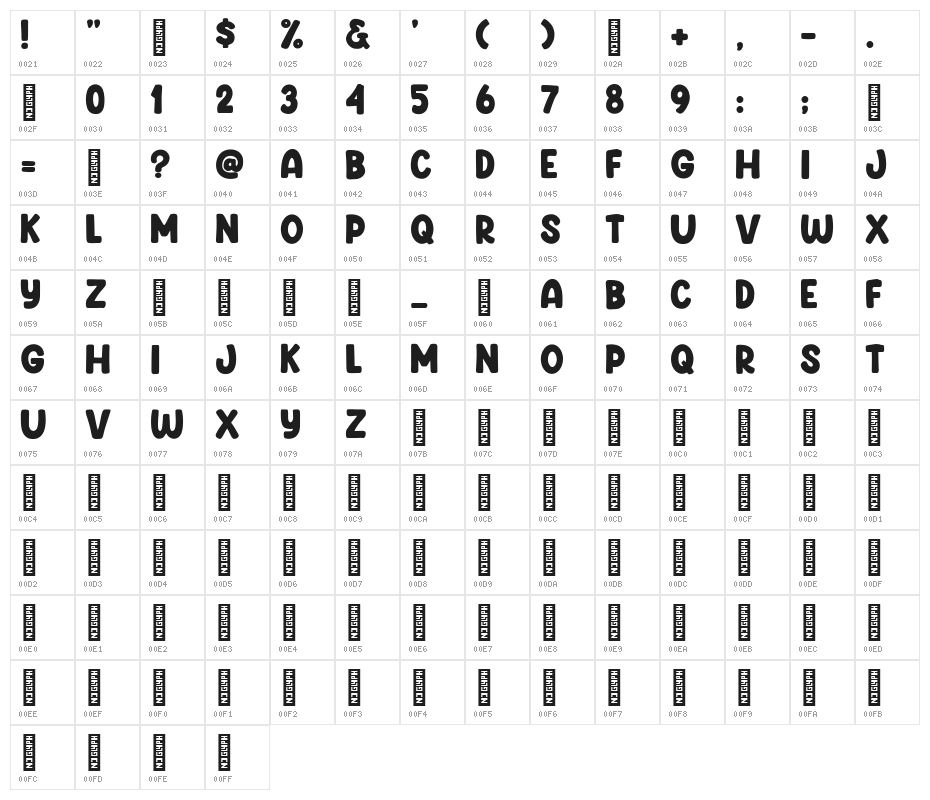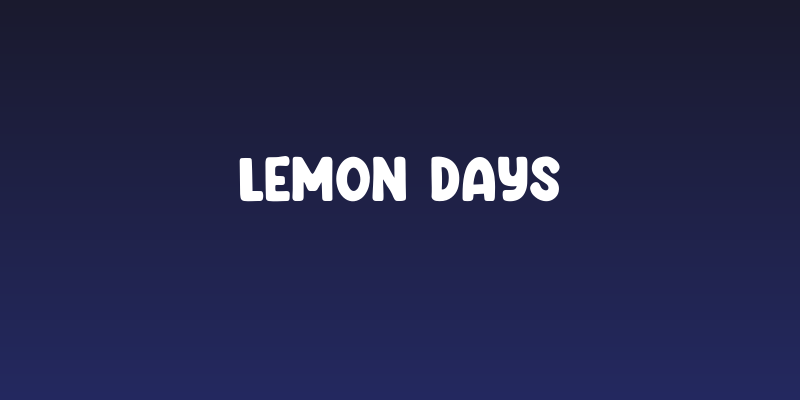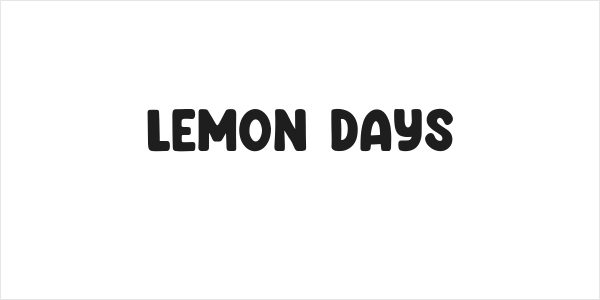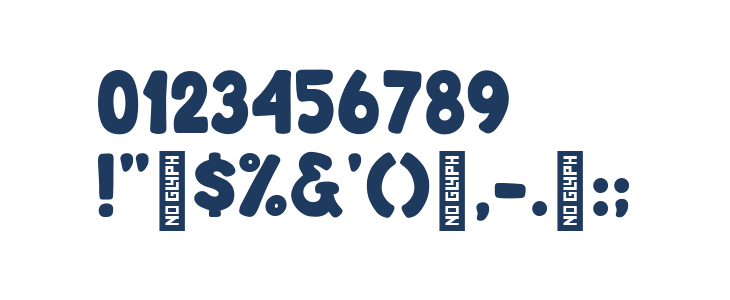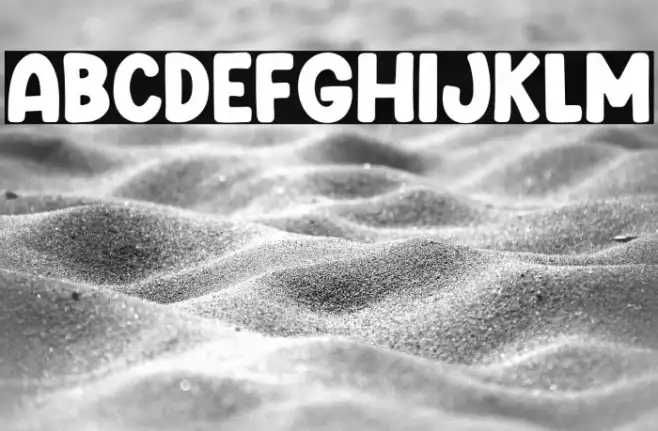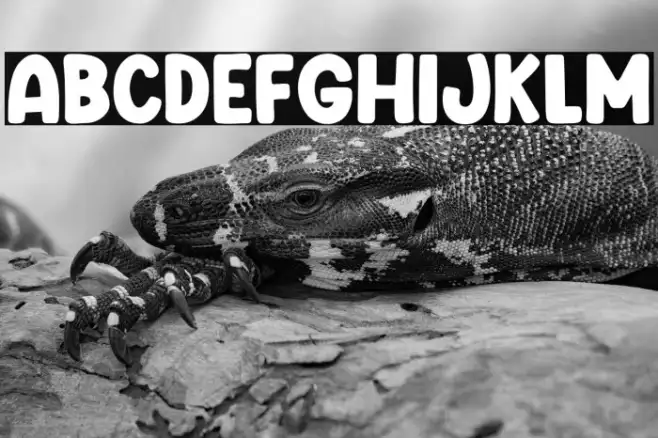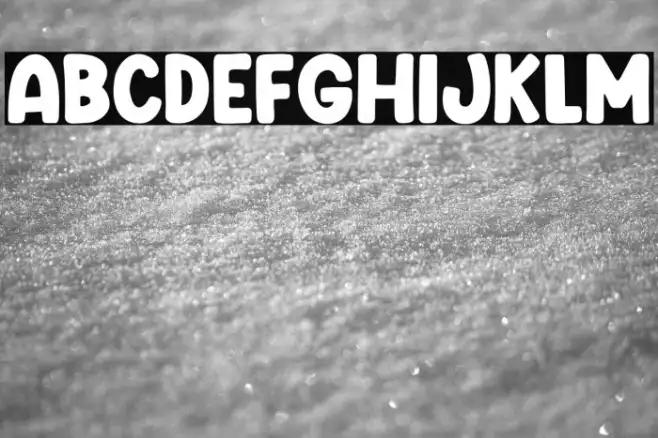
Lemon Days Font
Lemon Days Description
This font features bold, rounded characters with a playful and friendly appearance. The letters are thick and have a consistent stroke width, giving them a strong presence. The rounded edges and smooth curves contribute to a soft and approachable look, making it ideal for informal and fun designs. The numbers and special characters maintain the same playful style, ensuring consistency across all elements. This font is well-suited for projects that require a touch of whimsy and creativity.
| Proposed Projects | Ideal for children's books, playful branding, posters, and social media graphics. |